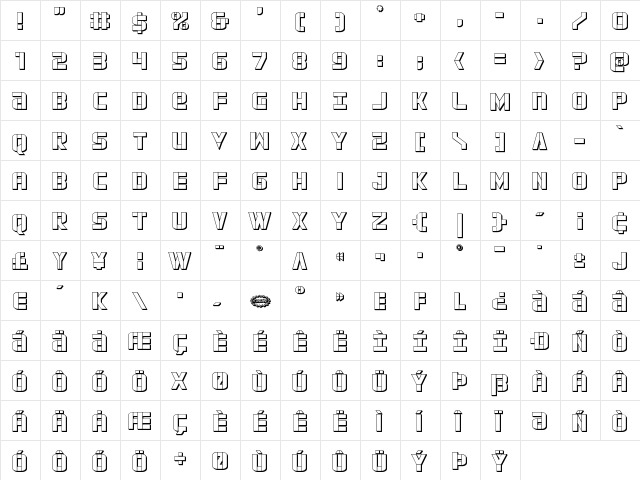
Force Commander 3D Regular
Design Context for Force Commander 3D Typeface
Force Commander 3D has the bold swagger of sports branding: strong, assertive letterforms designed to dominate headlines and jerseys alike.
Built for sports team identities, athletic apparel, event posters, and high-energy promotional material.
Pro Tip: Force Commander 3D thrives on contrast — try it large, bold, and tight against a clean background for maximum visual impact.